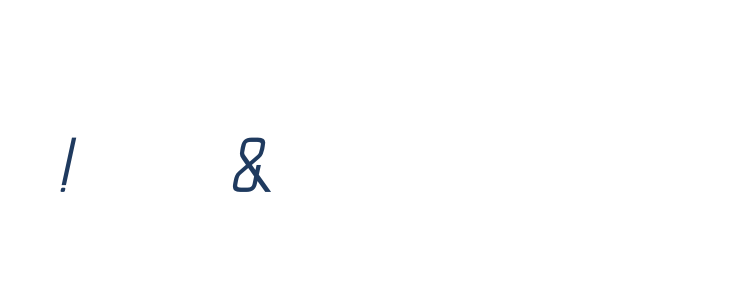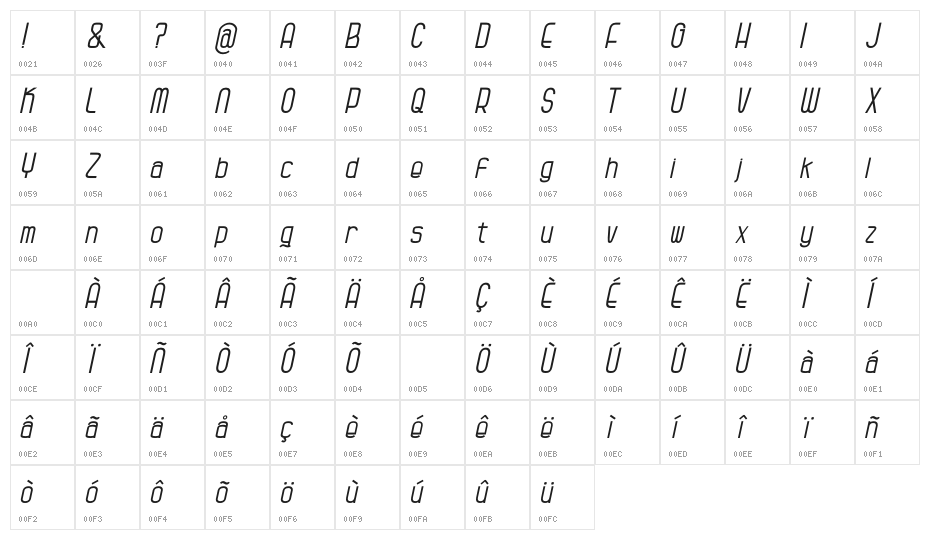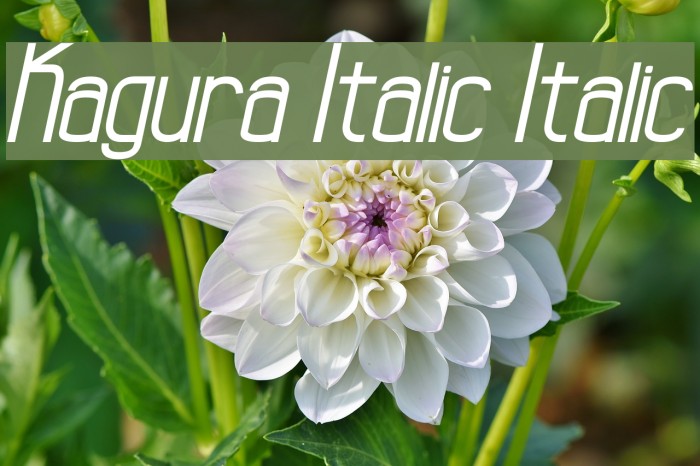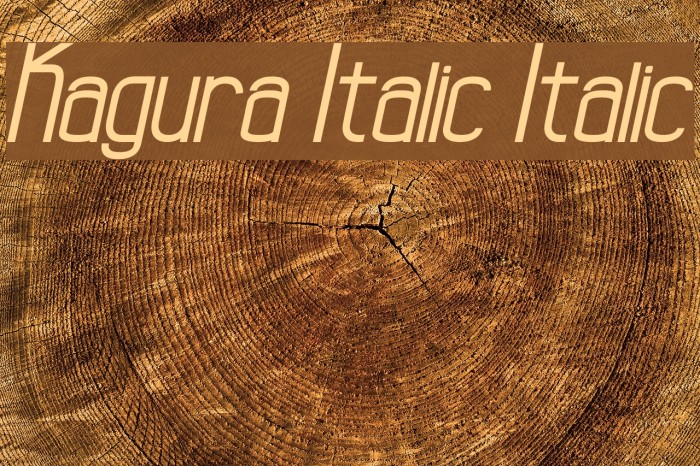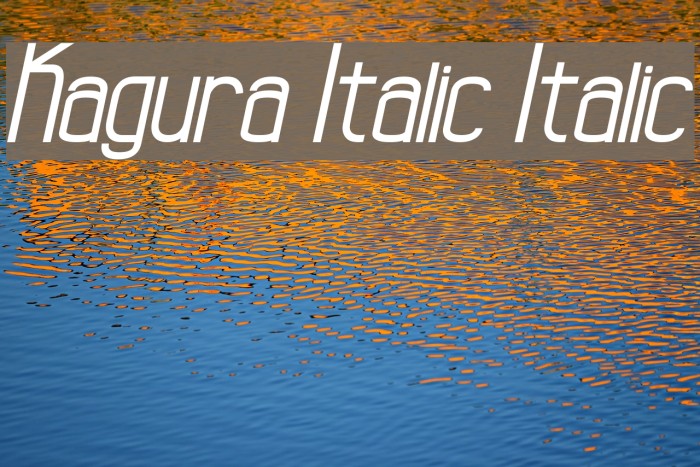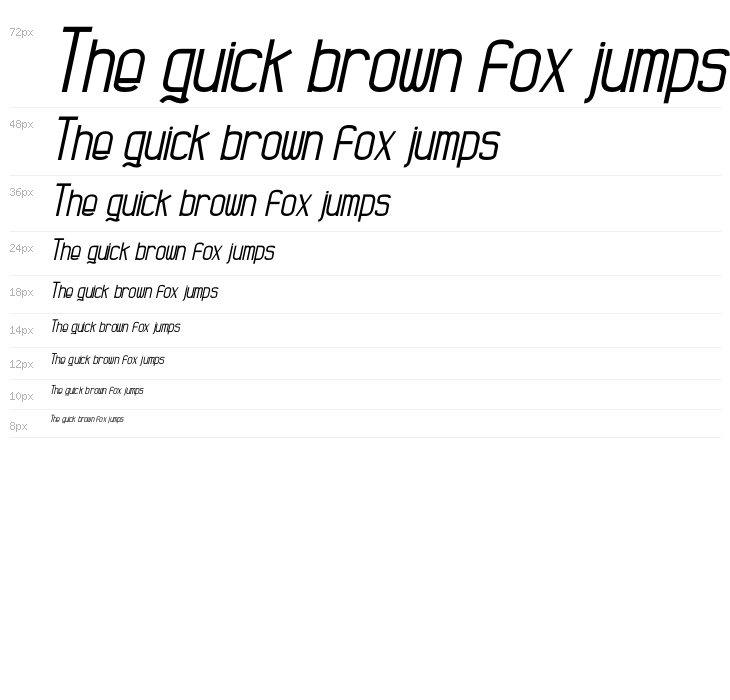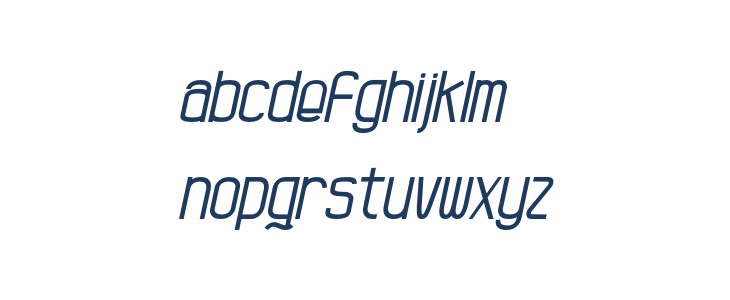
Kagura Italic Italic Font
This font features a sleek, modern design with a distinct italic slant, giving it a dynamic and forward-moving appearance. The characters are elongated with a slight curvature, adding to its contemporary aesthetic. The uppercase letters are tall and narrow, while the lowercase letters maintain a consistent flow, enhancing readability. The numerals and special characters are designed to complement the overall style, ensuring uniformity across different text elements. This font's unique style makes it suitable for projects that require a modern and stylish touch.
Use CaseHeadlines, Logos, Branding
Proposed ProjectsIdeal for branding, advertising, and editorial design where a modern and stylish look is desired.